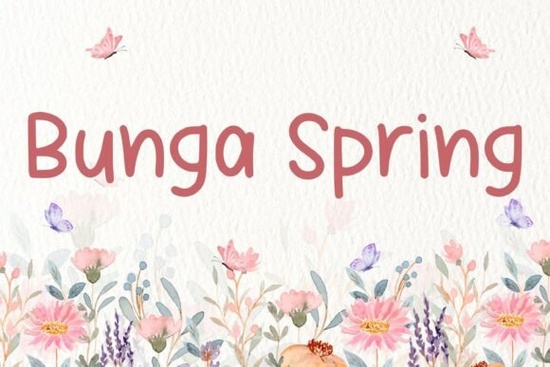
Finding the right typography for a new project often means balancing casual charm with professional readability. If you need a typeface that feels personal but still looks polished, the Bunga Spring Font is a strong option to consider. This handcrafted script typeface brings a natural, flowing aesthetic to both print and digital layouts. Crafters, small business owners, and print-on-demand sellers frequently look for this kind of versatile handwriting style because it adds a human touch without sacrificing legibility.
How does this script typeface work for product packaging?
When selling physical goods, the text on your labels and boxes needs to catch the eye while remaining easy to read. A refined script like this one provides a boutique feel to everyday items. Whether you are designing custom candle labels, artisan soap wrappers, or greeting cards, the graceful strokes mimic natural handwriting. Print-on-demand sellers can use this lettering to create unique apparel graphics that feel custom-made rather than mass-produced.
If you are pairing it with other typography, you might want to look at similar casual styles, such as the designs found in our collection of flowing script fonts, to see how different weights interact on a physical package. The key is to use this lettering for short phrases, brand names, or highlighted quotes rather than long blocks of body text. Keeping the usage brief ensures your customers can read the product details quickly and accurately.
Is it suitable for wedding invitations and digital blogs?
Wedding stationery relies heavily on elegant lettering, and this typeface offers a soft, romantic look that fits perfectly on RSVP cards, save-the-dates, and seating charts. It mirrors the beauty of nature, making it ideal for floral-themed events, spring weddings, or outdoor ceremonies. Crafters often mix this style with cleaner sans-serif fonts to create a balanced, modern layout that guests will appreciate.
For a slightly different mood in your stationery designs, you could compare it with the modern script options available here or the more relaxed vibe of the dreamback style lettering. On the digital side, bloggers and content creators can use it for post headers, Pinterest graphics, or logo watermarks. This approach gives a personal brand a distinct, welcoming personality that stands out in a crowded social media feed.
If the download includes OpenType features like ligatures, swashes, or alternate characters, you will need a program that supports OpenType to access those specific design details. These extra characters allow you to customize the flow of the words, making the text look truly hand-lettered. When building a larger font library for client work, many designers also explore the letterland script variations or the delicate lines of wintergirl style fonts to keep their creative options open.
How should you pair this handwriting style with other typefaces?
Pairing fonts correctly is crucial for clear communication. Because this script features expressive, decorative strokes, it works best alongside simple, highly readable typefaces. Try matching it with a geometric sans-serif for a modern, clean contrast, or use a classic serif font if you want a more traditional, editorial look.
Always test your combinations at the actual size they will be printed or displayed. A pairing that looks great on a large desktop monitor might become difficult to read on a small mobile screen or a tiny product tag. Adjusting the letter spacing, also known as tracking, on your secondary font can help create a more cohesive visual hierarchy across all your marketing materials.
Quick Checklist for Your Next Design Project:
- Use the script typeface only for headings, logos, or short quotes to maintain readability.
- Pair it with a simple sans-serif or serif font for any body text or detailed information.
- Check the OpenType panel in your software to explore alternate characters and ligatures for a custom look.
- Test your final design on the intended medium, whether that is a physical print proof or a mobile device screen.